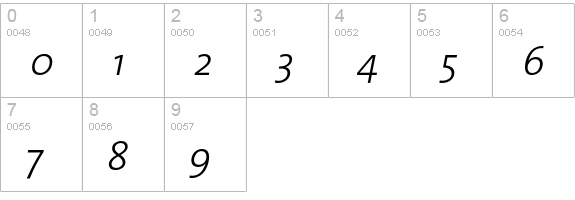
TheMix Light Italic is a refined, elegant, italic variant in the TheMix typeface family \xE2\x80\x94 well suited to elegant body text, refined sub-headings, and luxury branding.
TheMix Light Italic font is a delightful blend of elegance and modernity. With its subtle slant and delicate curves, this font exudes a sense of sophistication and refinement. Its light weight adds an air of subtlety, making it perfect for conveying a sense of grace and subtlety in your designs. This font is ideal for projects that require a touch of sophistication, such as wedding invitations, luxury brand logos, and high-end editorial layouts. Its sleek and stylish aesthetic pairs well with both serif and sans-serif fonts, allowing for versatile and creative combinations. TheMix Light Italic font is not only visually pleasing but also highly legible, ensuring that your message comes across clearly and effortlessly. Its graceful italicized letters add a touch of elegance to any text, making it stand out in a sea of ordinary fonts. And the best part? TheMix Light Italic font is available for free! You can easily download this font at FontsMarket.com, a trusted source for high-quality fonts. With just a few clicks, you can add this beautiful typeface to your design arsenal and elevate your projects to new heights. So why wait? Embrace the elegance and versatility of TheMix Light Italic font today and let your creativity shine. Download it for free at FontsMarket.com and unlock a world of design possibilities.